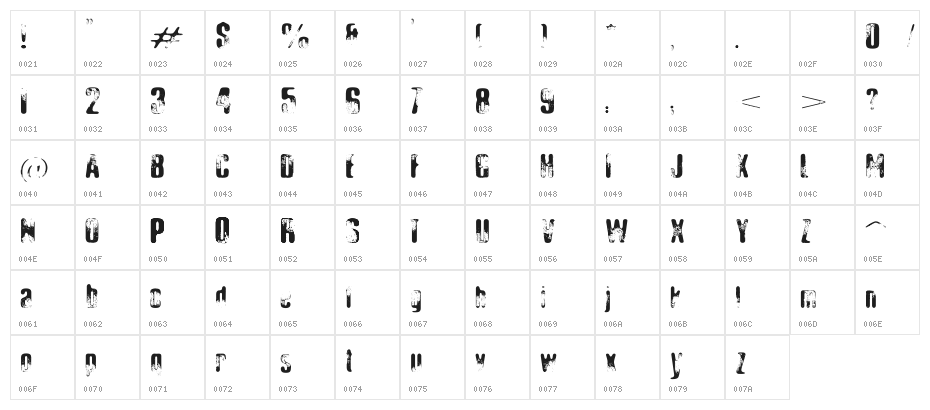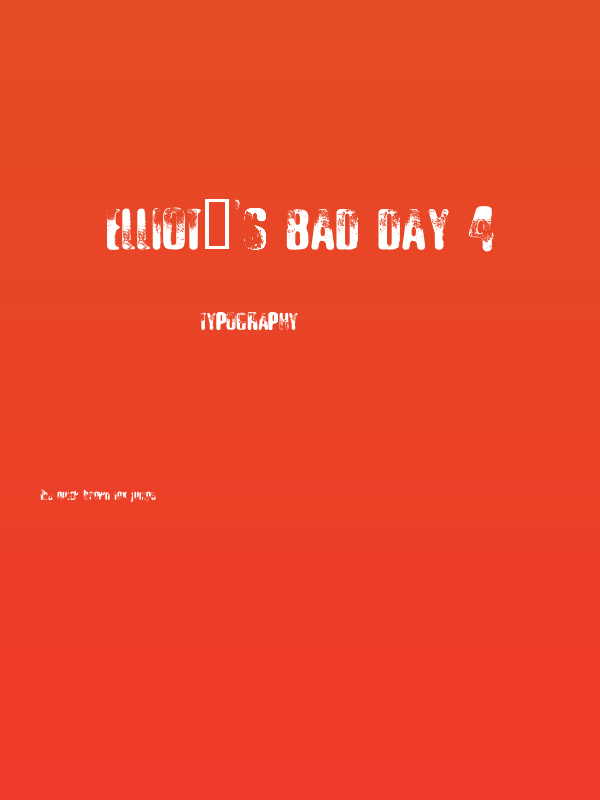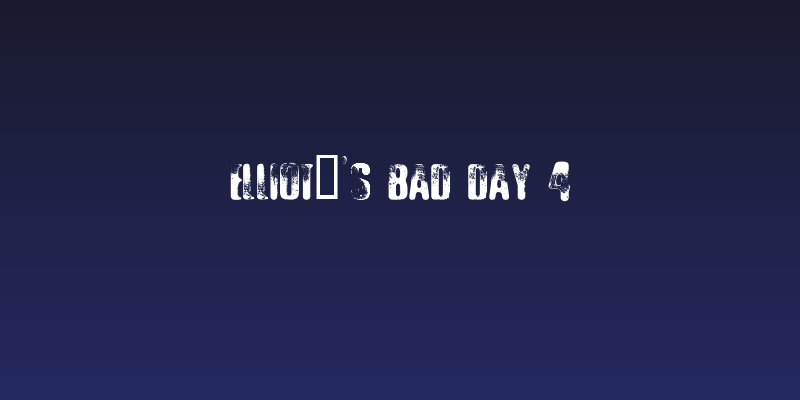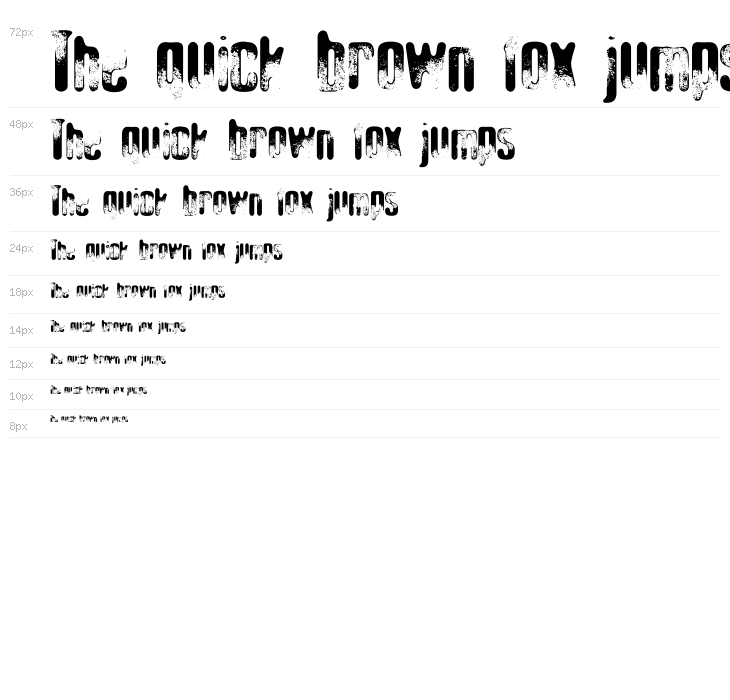
Elliot's Bad Day 4 Font
Elliot's Bad Day 4 Description
This font features a distressed, grunge style that gives it a worn and weathered appearance. The characters are bold and have a heavy weight, with irregular edges and a textured look that suggests erosion or decay. The uppercase and lowercase letters maintain a consistent style, with a slightly condensed width that enhances the rugged aesthetic. Numbers and special characters follow the same distressed pattern, making the font cohesive across all elements. The overall design is eye-catching and suitable for projects that require a gritty or vintage feel.
| Overall Style | Grunge, Vintage |
| Proposed Projects | Ideal for album covers, posters, urban-themed designs, and any project needing a gritty, vintage look. |